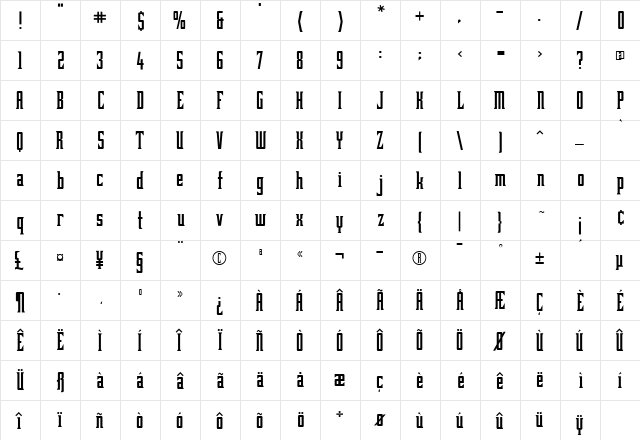
BubbaLove Regular Font Preview
BubbaLove Regular
BubbaLove Regular Font Details
Design Context for BubbaLove Typeface
BubbaLove offers clean, dependable letterforms without strong stylistic allegiance, making it a practical choice for designers who need flexibility.
Pro Tip: Pair BubbaLove with a font of contrasting weight or personality to build a more expressive typographic hierarchy.